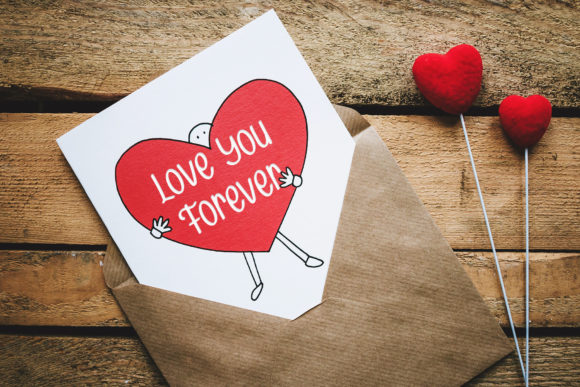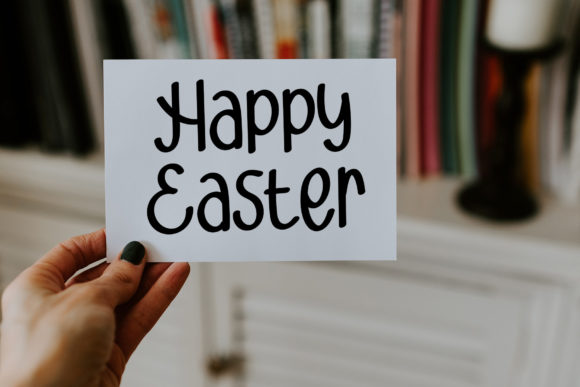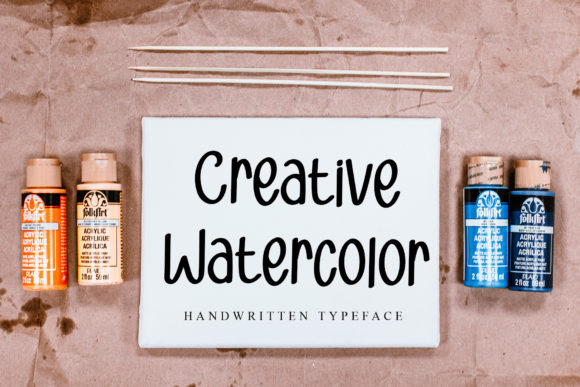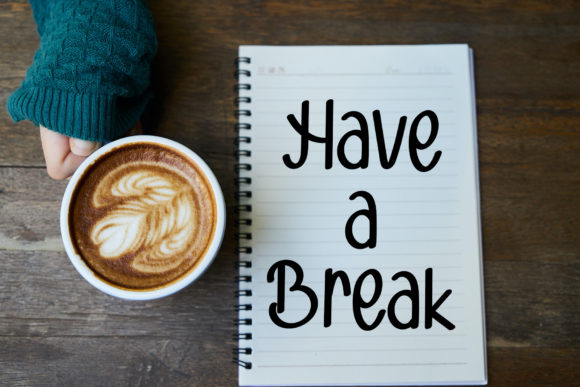
Introduction to Kanada Font
Have you ever stumbled upon the perfect font that makes your creative project pop? For designers, finding that elusive font can be a game-changer. It’s the difference between a mediocre design and one that truly stands out. I recall a moment when I was working on a project and I stumbled upon the Kanada Font. Its unique and friendly handwritten style was exactly what I needed to bring my design to life.
The Kanada Font is a treasure trove of creative possibilities, with its natural and high-quality design making it an ideal resource for designers of all levels. Whether you’re working on a project that requires a transparent background or a design that demands a certain level of sophistication, this font is sure to impress. With its free download option, you can unleash your creativity without breaking the bank.
Key Features of Kanada Font
- High-quality, elegant font suitable for various creative projects, including logo designs, posters, and other visual materials.
- Comes with a transparent background, allowing for seamless integration with different backgrounds and designs.
- Features a clean and modern design, with a resolution of 300 DPI, making it suitable for high-resolution printing and digital displays.
- Unique characteristics include its elegant and sophisticated feel, making it an ideal choice for luxury brands, fashion designs, and other high-end creative projects.
Honest Review: Kanada Font
As a designer, I’ve had the pleasure of working with various fonts and design resources. Recently, I came across the Kanada Font, and I’m excited to share my honest review with you.
- ✨ Unique and elegant design: The Kanada Font boasts a beautiful, hand-drawn style that’s perfect for creative projects requiring a touch of sophistication.
- ✨ High quality: The font is well-crafted, with smooth lines and precise details, making it suitable for a wide range of applications, from print to digital media.
- ⚠️ Limited font styles: While the Kanada Font is beautiful, it’s limited to a single style, which may not be suitable for projects requiring multiple font options.
- ⚠️ No transparent background: Some designers may find that the font doesn’t work well with transparent backgrounds, which can be a limitation for certain creative projects.
Overall, the Kanada Font is a high-quality design resource that’s perfect for designers looking for a unique and elegant font. While it has some limitations, its beauty and versatility make it a valuable addition to any design toolkit. If you’re looking for a free font that’s perfect for creative projects, the Kanada Font is definitely worth checking out.
The Kanada Font is a high-quality, free design resource ideal for various creative projects. With its unique style and versatility, it can add a touch of sophistication to your work.
Tips for Getting the Most Out of the Kanada Font
For the best results, use the Kanada Font with a transparent background and pair it with high-quality images or graphics. This will help the font stand out and add depth to your design.
The Kanada Font is ideal for a variety of creative projects, including:
– Brochures and flyers
– Business cards and resumes
– Social media graphics and posts
– Infographics and presentations
Can I use the Kanada Font with a transparent background?
Yes, the Kanada Font supports transparent backgrounds, making it ideal for creative projects that require a high level of design flexibility. To use the font with a transparent background, simply select the font in your design software and set the background color to transparent or alpha-blended.